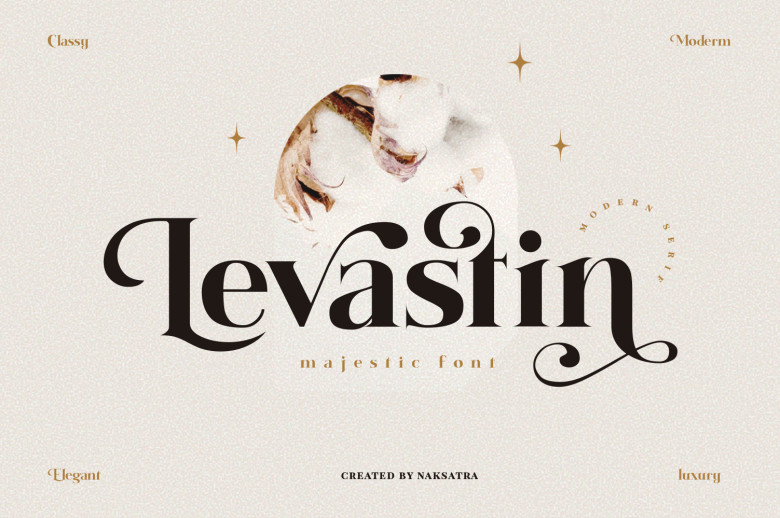
Levastin Font
Levastin is beauty Modern or Vintage style Are you looking font with elegant and luxurious taste? You are on the right page because Levastin is offering you a luxury typeface and giving your design an elegant and luxurious taste.
This font is support multilingual going to access OpenType features alternate letters and ligatures, select the letters that you like and Levastin will create your design look good.
Levastin Serif Font